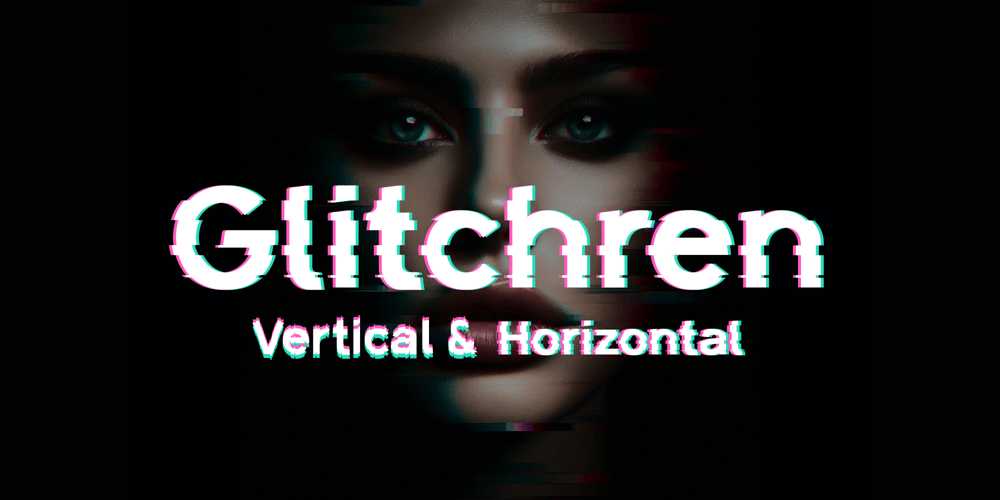
Glitchren
Glitchren font
Glitchren Font Family was designed by Irsad Waroid Musyaffa and published by Iwm Design. Glitchren contains 2 styles and family package options. Introducing Glitchren, a cutting-edge typeface that embodies the aesthetic of digital disruption with two unique styles. Glitchren Horizontal features deliberate horizontal glitches, breaking the flow of text to create a visually striking effect perfect for grabbing attention in edgy posters, futuristic branding, and creative digital artwork. In contrast, Glitchren Vertical disrupts your text with cascading vertical glitches, adding a unique dimension of digital chaos. Perfect for innovative designs, tech-themed projects, and modern artistic expressions, Glitchren Vertical offers a fresh take on glitch aesthetics. Embrace the digital disruption with Glitchren and let your designs push the boundaries of conventional typography.